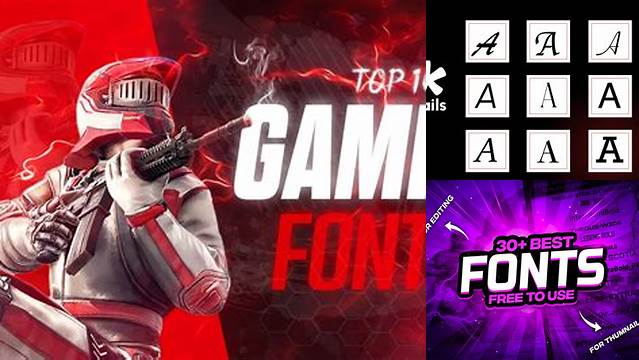
Best Fonts For YouTube Gaming Thumbnails: Get More Views
Hey gamers! Creating eye-catching thumbnails is super crucial for your YouTube gaming channel. Think of your thumbnail as the first impression – it's what reels viewers in. And guess what? The font you choose plays a huge role in making that impression a good one. Forget those boring, default fonts! We're diving deep into the best fonts for YouTube gaming thumbnails that will make your videos stand out from the crowd.
Why Your Font Choice Matters for Gaming Thumbnails
Your font choice is a powerful tool in your thumbnail arsenal. It's not just about slapping any old text on your image. It's about conveying the vibe of your game, the energy of your content, and the excitement you want viewers to feel. Imagine a horror game thumbnail with a bubbly, cartoonish font – it just wouldn't work, right? A strong, impactful font can instantly communicate the genre, the tone, and the overall feeling of your video. It can scream “epic win,” whisper “creepy scares,” or shout “hilarious fails,” all before anyone even clicks play. Choosing the right font helps you connect with your target audience, letting them know at a glance if your video is the kind of content they're looking for. Beyond aesthetics, readability is king. Your chosen font needs to be clear and legible, even at small sizes. Think about viewers browsing on their phones – can they easily read your thumbnail text? If not, you're losing potential clicks. A blurry or hard-to-read font will just get passed over. You want something that pops, something that grabs attention, but most importantly, something that's easy to read. So, it’s about finding that sweet spot between style and clarity. Think about the overall design of your thumbnail too. Your font should complement your visuals, not clash with them. A busy, cluttered thumbnail with an equally busy font will just overwhelm the viewer. A clean, bold font can stand out against a detailed game screenshot, while a more stylized font might work well with a simpler background. The key is harmony – your font should enhance the overall impact of your thumbnail, not detract from it.
Top Font Styles for Gaming Thumbnails
When it comes to gaming thumbnails, certain font styles just work better than others. We're talking about fonts that convey energy, excitement, and a sense of fun – the perfect recipe for attracting clicks. Let's break down some of the most popular and effective font styles you can use to make your thumbnails pop.
Bold and Impactful Fonts
These are your go-to fonts for making a statement. Think big, chunky letters that practically jump off the screen. Bold fonts are fantastic for conveying power, excitement, and intensity – perfect for action-packed gameplay videos, intense boss battles, or highlight reels. They instantly grab attention and make your text highly readable, even at smaller sizes. When choosing bold fonts, look for those with a strong, clean design. Avoid anything too decorative or overly stylized, as this can detract from readability. You want a font that's bold but also clear and easy on the eyes. A classic sans-serif bold font is always a safe bet, but you can also experiment with bolder serif fonts for a more unique look. Consider the spacing between letters and the overall shape of the font. A well-designed bold font will have a balanced, visually appealing look that enhances your thumbnail's impact. Remember, the goal is to make your text stand out without overwhelming the image. Bold fonts are excellent for titles, keywords, or anything you want to emphasize. They can also be paired with a smaller, more subtle font for supporting text. The key is to use them strategically to create a visual hierarchy and guide the viewer's eye to the most important information. So, if you want to make a big impression, a bold and impactful font is your best friend.
Futuristic and Sci-Fi Fonts
If your gaming channel focuses on sci-fi, cyberpunk, or futuristic titles, then futuristic fonts are a must. These fonts instantly evoke a sense of technology, innovation, and the unknown. They can add a cool, cutting-edge vibe to your thumbnails, making them look sleek and modern. When choosing futuristic fonts, look for those with clean lines, sharp angles, and a sense of forward motion. Many futuristic fonts incorporate geometric shapes or unique letterforms that give them a distinctive, tech-inspired look. However, it's important to balance style with readability. Some futuristic fonts can be overly stylized, making them difficult to read at smaller sizes. Look for fonts that are both visually striking and easily legible. Think about the overall theme of your game and choose a font that complements it. A gritty, industrial-style font might be perfect for a dystopian cyberpunk game, while a sleek, minimalist font could work well for a space exploration title. Consider the color palette of your thumbnail as well. Futuristic fonts often look great in neon colors or with a glowing effect. Experiment with different colors and styles to find what works best for your specific design. Remember, the goal is to create a thumbnail that looks both futuristic and professional. A well-chosen futuristic font can instantly communicate the genre of your game and attract viewers who are interested in that type of content. So, embrace the future and let your fonts reflect the cutting-edge nature of your gaming channel.
Cartoon and Comic Fonts
For more lighthearted games, like platformers, adventure games, or anything with a playful vibe, cartoon and comic fonts are a fantastic choice. They instantly inject a sense of fun, energy, and personality into your thumbnails. These fonts are perfect for conveying a lighthearted, approachable tone, making your videos look more inviting to viewers. When choosing cartoon and comic fonts, look for those with rounded edges, playful shapes, and a sense of movement. Many cartoon fonts have a hand-drawn or handwritten feel, which can add a personal touch to your thumbnails. However, it's important to choose a font that's still easy to read. Avoid anything too messy or overly stylized, as this can detract from clarity. Think about the overall style of your game and choose a font that complements it. A bouncy, bubbly font might be perfect for a colorful platformer, while a more rugged, comic book-style font could work well for an action-adventure game. Consider the age range of your target audience as well. Younger viewers might be more drawn to bright, playful fonts, while older viewers might prefer something a bit more sophisticated. Experiment with different colors and styles to find what works best for your specific design. Cartoon and comic fonts often look great in bold colors or with a drop shadow effect. Remember, the goal is to create a thumbnail that looks fun and engaging. A well-chosen cartoon font can instantly communicate the tone of your video and attract viewers who are looking for lighthearted entertainment. So, unleash your inner cartoonist and let your fonts add a playful touch to your gaming channel.
Top Font Recommendations for Gaming Thumbnails
Okay, guys, let's get down to the nitty-gritty. We've talked about the importance of fonts and the different styles that work well for gaming thumbnails. Now, let's dive into some specific font recommendations that you can use to make your thumbnails pop. These are some tried-and-true fonts that are popular among YouTubers and designers, and for good reason – they look great and are highly effective at grabbing attention.
Montserrat
Montserrat is a classic sans-serif font that's known for its clean, modern look. It's incredibly versatile and works well in a variety of contexts, making it a fantastic choice for gaming thumbnails. What makes Montserrat so special? Its clean lines and geometric shapes make it highly readable, even at smaller sizes. This is crucial for thumbnails, where your text needs to be clear and legible at a glance. Montserrat also has a friendly, approachable feel, making it a great choice for channels that want to project a welcoming image. But don't let its friendliness fool you – Montserrat can also be used to create bold, impactful headlines. The extra-bold weights of Montserrat are particularly effective for grabbing attention. Montserrat also comes in a wide range of weights and styles, giving you plenty of options to play with. You can use different weights to create a visual hierarchy in your thumbnail, emphasizing certain words or phrases. For example, you might use Montserrat Bold for your main title and Montserrat Regular for your subtitle. Montserrat pairs well with a variety of other fonts, making it easy to create a cohesive design. It works particularly well with other sans-serif fonts, but it can also be paired with serif fonts for a more contrasting look. If you're looking for a font that's both versatile and professional, Montserrat is an excellent choice. It's a font that you can rely on to deliver clear, impactful text, no matter what your gaming niche is.
Bebas Neue
Bebas Neue is a super popular sans-serif font that's known for its tall, condensed letters. It's a fantastic choice for gaming thumbnails because it allows you to fit more text into a smaller space without sacrificing readability. This is especially useful for thumbnails where space is limited. What makes Bebas Neue so effective? Its tall, narrow letters create a sense of height and energy, making your thumbnails look more dynamic. It's a font that commands attention and makes a strong statement. Bebas Neue also has a clean, modern look that works well with a variety of gaming styles. Whether you're creating thumbnails for action games, RPGs, or strategy games, Bebas Neue can help you convey the right vibe. The condensed design of Bebas Neue also means that you can use larger font sizes without your text taking up too much space. This is crucial for readability, especially on smaller screens. Bebas Neue is a free font, which makes it an accessible option for YouTubers on a budget. Despite being free, it's a high-quality font that's used by many professional designers. It's a testament to its effectiveness and versatility. Bebas Neue pairs well with other sans-serif fonts, but it can also be used effectively on its own. Its bold, impactful design makes it a great choice for titles and headlines. If you're looking for a font that's both space-saving and attention-grabbing, Bebas Neue is an excellent choice. It's a font that will help you maximize your thumbnail space and make your videos stand out from the crowd.
Luckiest Guy
Now, for something completely different! Luckiest Guy is a bold, hand-drawn comic font that's bursting with personality. It's perfect for gaming thumbnails that need a touch of fun, energy, and playfulness. If your channel focuses on lighthearted games, funny moments, or anything with a cartoonish vibe, Luckiest Guy is a fantastic choice. What makes Luckiest Guy so unique? Its hand-drawn style gives it a casual, approachable feel that's instantly engaging. It's a font that looks like it was ripped straight from a comic book, adding a touch of nostalgia and whimsy to your thumbnails. Luckiest Guy is also incredibly bold and impactful, making it great for grabbing attention. The chunky letters practically jump off the screen, ensuring that your message is seen. However, it's important to use Luckiest Guy strategically. Its bold, playful style might not be appropriate for every type of game or channel. It's best suited for games that are lighthearted, fun, or aimed at a younger audience. Luckiest Guy works particularly well in bright colors and with a drop shadow effect. These effects can enhance its cartoonish style and make your thumbnails even more eye-catching. It pairs well with other cartoon fonts or with simpler sans-serif fonts. The key is to create a balance between playfulness and readability. If you're looking for a font that will inject some personality into your thumbnails, Luckiest Guy is an excellent choice. It's a font that will make your videos look fun, engaging, and impossible to resist.
Level Up Your Thumbnails Today!
So there you have it, guys! A deep dive into the world of fonts for YouTube gaming thumbnails. We've covered why fonts matter, the top font styles, specific font recommendations, and crucial tips for using fonts effectively. Now it's your turn to put this knowledge into action and level up your thumbnails. Remember, your thumbnail is your first impression, and your font plays a huge role in making that impression a great one. So, choose wisely, experiment, and have fun with it! By using the right fonts and applying these tips, you can create thumbnails that grab attention, communicate your video's content, and ultimately, get you more clicks and views. Now go forth and create some amazing thumbnails!